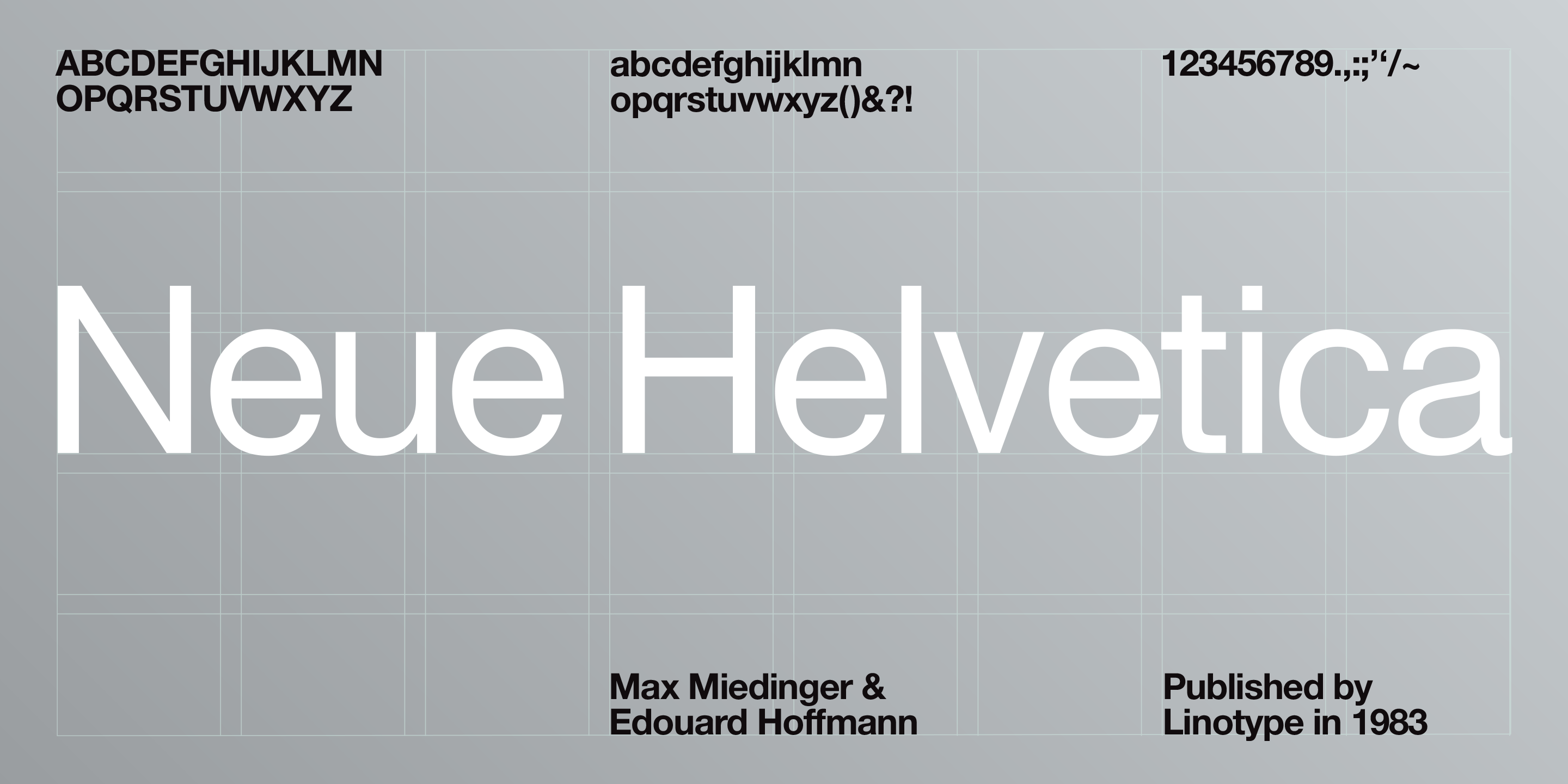
Neue Helvetica Font is perfect for Swiss design principles, minimalist corporate branding, clean architectural signage, modern transportation systems, pharmaceutical packaging, precise technical documentation, international business communications, and refined design projects that require neutral typography with Swiss precision character and modernist clarity sophistication.
This Neue Helvetica Font is exciting because it represents the evolution of the legendary Helvetica typeface with enhanced letterforms that embody Swiss design excellence and typographic precision, featuring meticulously refined character construction that ensures maximum clarity while maintaining the timeless neutrality that made Helvetica a global standard for professional communication.
The Neue Helvetica Font family includes comprehensive weights with Swiss styling, complete character sets with precise uppercase and lowercase letters, neutral numerals, clean punctuation, and international symbols that provide comprehensive typography solutions for corporate and modernist design projects requiring authentic Swiss aesthetics and professional appeal.
Perfect for creating precise professional communications and neutral brand identities, Neue Helvetica Font Free Download delivers the refined typography that transforms text into clear expressions of Swiss design excellence and modernist functionality. This distinctive typeface honors the legacy of Helvetica while advancing typographic precision, making it essential for projects celebrating Swiss design, modernist principles, international communication, and any design requiring neutral character with authentic Swiss sophistication and timeless modernist appeal that ensures clarity and professionalism across all applications.